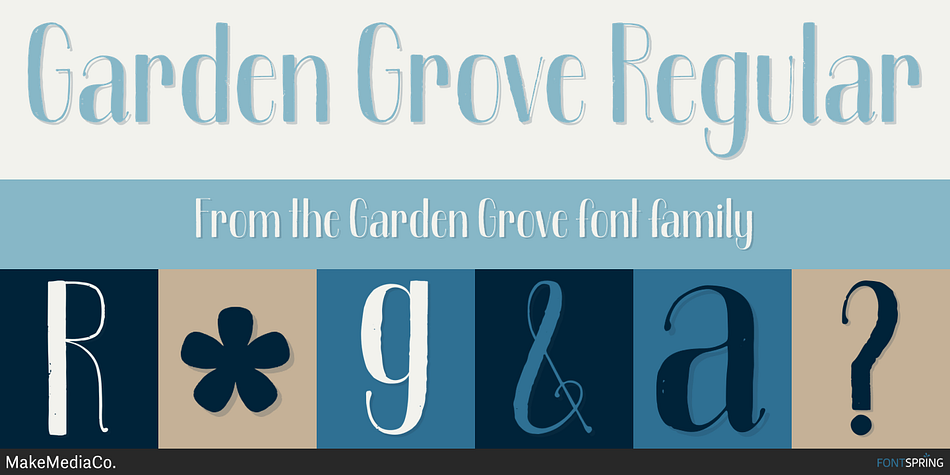
Garden Grove Regular
Garden Grove is a font family published by MakeMediaCo.
Say hello to Garden Grove, a decorative, hand-drawn typeface that’s sure to turn heads on just about any headline or packaging.
Garden Grove boasts both upper and lowercase glyphs, standard numerals, punctuation, Western European language support and a series of select, decorative uppercase ligatures for a unique, retro vibe. I just love how this one turned out and I hope you do too! Can’t wait to see what you create! ????????????????
• Select Uppercase Ligatures & Alternates